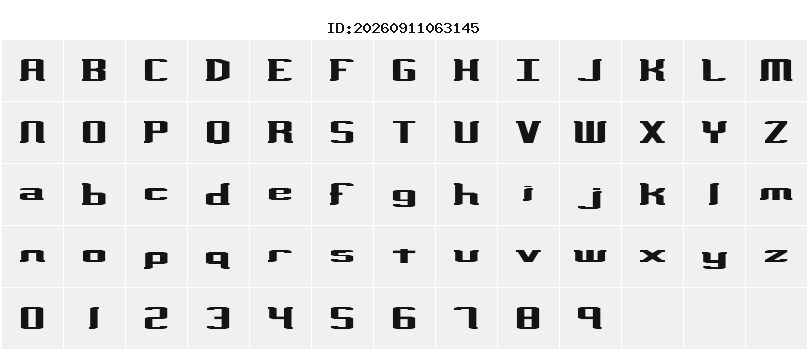
• Font Name: Variance (BRK)
• Full Font Name: Variance -BRK-
About Variance (BRK).ttf
Variance (BRK).ttf is a modern, elegant sans-serif font designed for ultimate readability and visual harmony. Perfect for branding, headlines, web design, and print materials.